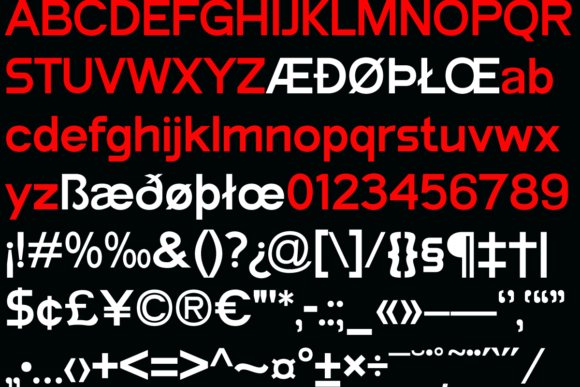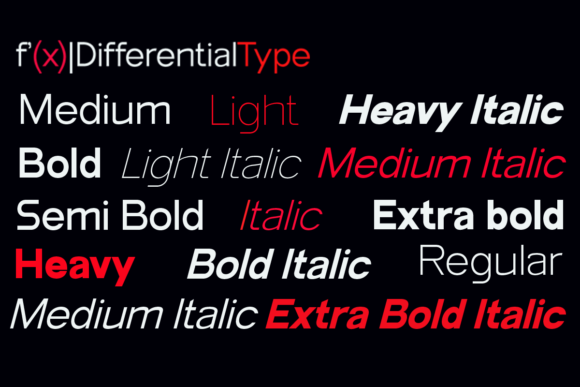
Introduction to Namata Font
Have you ever been working on a creative project, staring at a blank page, and suddenly the perfect font pops into your head? For designers, finding the right font can be the difference between a project that shines and one that falls flat. That’s why we’re excited to introduce you to the Namata Font, a bold sans serif font that’s about to become your new go-to design resource.
With its high-quality design and numerous weights and styles, the Namata Font is perfect for documents, blogs, social media, marketing campaigns, and more. Its clean and modern aesthetic makes it an excellent choice for any creative project, and the best part? It’s available for free download, making it an accessible and valuable resource for designers of all levels.
Whether you’re a seasoned pro or just starting out, the Namata Font is sure to elevate your designs and take your creative projects to the next level. In this article, we’ll dive deeper into the world of the Namata Font and explore its many features and benefits.
Key Features of Namata Font
- Unique characteristics: Namata Font features a modern, minimalist aesthetic with subtle flair, making it perfect for various creative projects
Honest Review: Namata Font
I recently had the chance to work with the Namata Font for a creative project, and I must say it was a pleasant experience. The font’s unique design and high quality made it a great addition to my project.
- ✨ Unique and elegant design that adds a touch of sophistication to any project
- ⚠️ Limited character set, which may not be ideal for projects that require a wide range of characters
- ⚠️ Not ideal for use in small text sizes, as it may become difficult to read
Overall, I was impressed with the Namata Font’s performance and versatility. While it may not be perfect, it’s a great design resource for designers looking for a unique and high-quality font to add to their creative project. With a few limitations in mind, I would definitely recommend it for the right project.
The Namata Font is ideal for creative projects that require a high-quality and stylish typography, such as:
Branding and marketing materials
Editorials and publications
Advertising